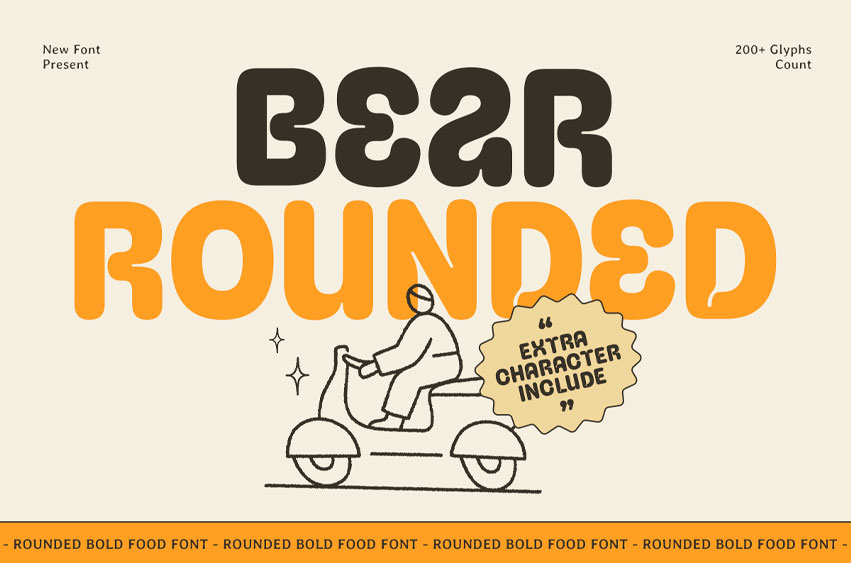
Bear Rounded Font
Bear Rounded Font is a rounded bold food font designed to bring warmth, friendliness, and delicious visual appeal to your creative projects. With its thick curves and ultra-smooth edges, this typeface is perfect for food branding, snack packaging, restaurant identity, and fun promotional visuals.
Crafted with a playful spirit, BEAR ROUNDED delivers a soft and approachable character that stands out in both digital and print formats. Its bold presence makes it ideal for logos, menus, posters, children’s products, and vibrant social media graphics.
Whether you’re designing for bakeries, cafes, food trucks, or sweet treat brands, BEAR ROUNDED adds joyful personality and irresistible charm to any layout.
BEAR ROUNDED – Rounded Bold Food Font Features
• Bold rounded letterforms perfect for food & playful design
• Great for restaurant branding, packaging, menus, and kids’ products
• Soft, friendly shapes with high visual appeal
• Excellent readability in both small and large sizes
• OpenType features for creative flexibility
Make your branding look soft, bold, and irresistibly tasty with BEAR ROUNDED – the perfect rounded font for food, fun, and playful design.